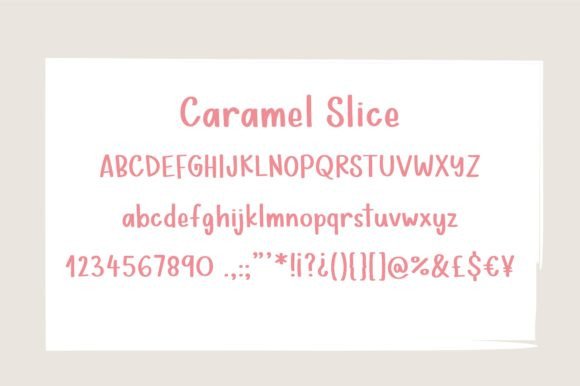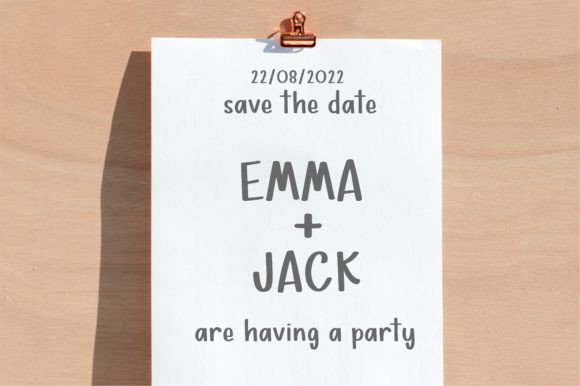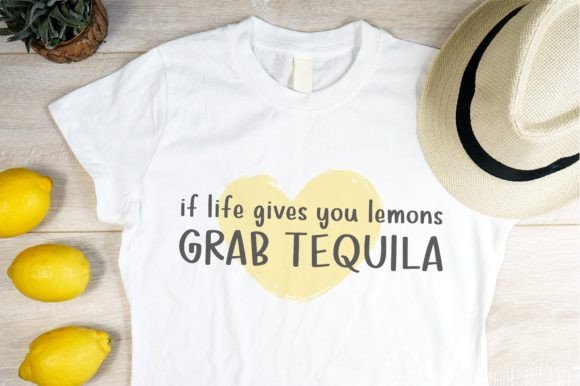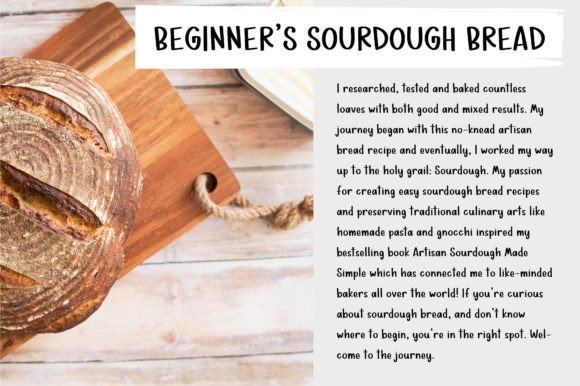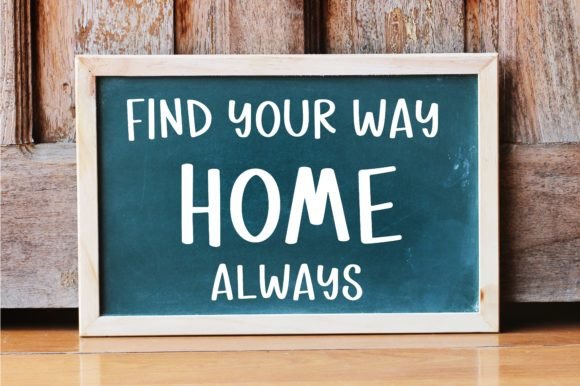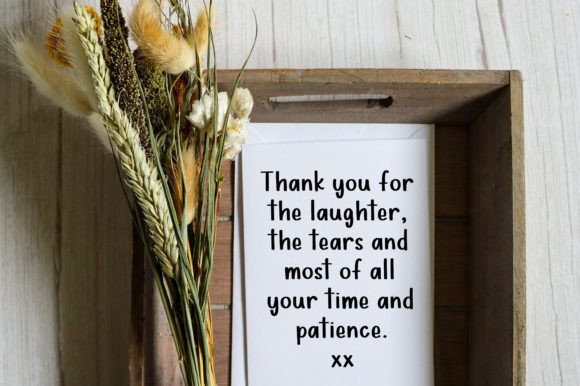
Introducing Caramel Slice Font: The Sweetest Addition to Your Design Toolbox
Are you on the hunt for a font that’s as sweet as it is versatile? Look no further than Caramel Slice, a bold and playful handwritten font that’s perfect for a wide range of design projects. In this article, we’ll dive into the world of Caramel Slice, exploring its unique features, uses, and benefits for designers and crafters alike.
What is Caramel Slice Font?
Caramel Slice is a bold and playful handwritten font that’s sure to add a touch of whimsy to any design project. With its unique blend of curves and lines, this font is perfect for creating eye-catching graphics, logos, and text-based designs that demand attention. Whether you’re a seasoned designer or a crafter looking to add some personality to your projects, Caramel Slice is an excellent choice.
Key Features of Caramel Slice Font
- Bold and Playful: Caramel Slice is a font that’s not afraid to make a statement. Its bold and playful design makes it perfect for creating eye-catching graphics and designs that pop.
- Handwritten Style: With its unique handwritten style, Caramel Slice adds a touch of personality and warmth to any design project.
- Versatile: Whether you’re designing for print or digital, Caramel Slice is a versatile font that can be used in a wide range of applications.
Best Uses for Caramel Slice Font
So, what are the best uses for Caramel Slice font? The answer is: the possibilities are endless! However, here are some of our favorite ways to use this amazing font:
- Crafting Projects: Add a personal touch to your crafting projects, such as scrapbooking, card making, and DIY decorations.
- Social Media Graphics: Create eye-catching social media graphics, such as Facebook posts, Instagram stories, and Twitter headers, that demand attention.
- Apparel Design: Use Caramel Slice to create custom apparel designs, such as t-shirts, hoodies, and tote bags, that make a statement.
- Print Design: Add some personality to your print designs, such as brochures, flyers, and posters, with Caramel Slice font.
Benefits of Using Caramel Slice Font
So, why should you choose Caramel Slice font for your next design project? Here are just a few benefits of using this amazing font:
- Unique and Eye-Catching: Caramel Slice is a font that’s sure to grab attention and make your designs stand out from the crowd.
- Easy to Read: Despite its bold and playful design, Caramel Slice is easy to read, making it perfect for body text and headings.
- Customizable: With its wide range of uses and applications, Caramel Slice font can be customized to fit your unique design style and needs.
Tips and Tricks for Using Caramel Slice Font
Here are a few tips and tricks for getting the most out of Caramel Slice font:
- Experiment with Colors: Caramel Slice font looks amazing in a wide range of colors, so don’t be afraid to experiment and find the perfect hue for your design.
- Pair with Other Fonts: Try pairing Caramel Slice with other fonts to create a unique and eye-catching design.
- Use for Headings and Titles: Caramel Slice font is perfect for headings and titles, so don’t be afraid to use it to add some personality to your designs.
| Font Name | Caramel Slice Font |
| Author | sunday nomad |
In conclusion, Caramel Slice font is a bold and playful handwritten font that’s perfect for designers and crafters alike. With its unique features, versatility, and ease of use, it’s an excellent addition to any design toolbox. Whether you’re creating crafting projects, social media graphics, apparel design, or print design, Caramel Slice font is sure to make your designs stand out from the crowd.